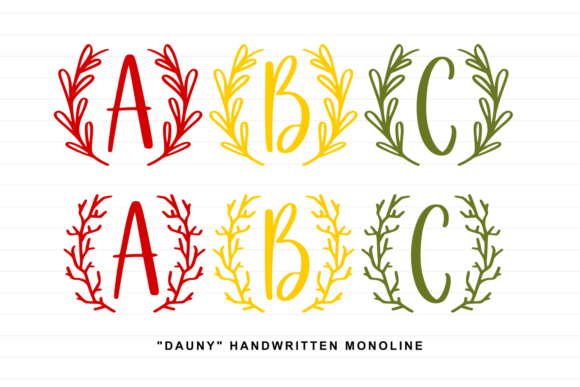
Adding a Personal Touch: The Charm of Dauny Monogram Font
As designers, we’ve all been there – staring at a blank page, trying to bring a client’s vision to life. Sometimes, it’s the smallest details that make the biggest impact. For me, it’s the moment when a custom monogram font comes together, transforming a simple initial into a beautiful work of art. That’s exactly what happens with the Dauny Monogram Font – a delightful, handwritten font designed to add a touch of warmth and personality to your designs.
Dauny Monogram Font is perfect for logos, labels, stationery, and wedding details, where a unique and memorable signature is essential. Its soft curves and friendly proportions make it ideal for short names and initials, while its compact monogram style keeps the look neat and tidy. Whether you’re a seasoned designer or just starting out, Dauny Monogram Font is a valuable addition to your toolkit, helping you create designs that feel joyful, gentle, and handmade.
- Unique Characteristics: This font features elegant, cursive monogram designs with intricate details, making it perfect for creating personalized and sophisticated designs.
- Font Style: Dauny Monogram Font is available in a single font style, but it offers various monogram designs, allowing users to choose the perfect combination of letters and shapes to suit their needs.
Dauny Monogram Font Review
At first glance, I was immediately drawn to the unique and elegant aesthetic of Dauny Monogram Font. It’s a beautiful script font that exudes sophistication and style. ✨ The font’s intricate details and delicate curves make it perfect for creating a high-end, luxurious feel in any design project.
- Unique and elegant aesthetic
- Perfect for creating a high-end, luxurious feel
- Delicate curves and intricate details
- Great for branding and packaging design
- Works well in a variety of contexts, from formal to modern
However, I did notice a few limitations with Dauny Monogram Font. ⚠️ The font can be a bit too ornate for some designs, and the intricate details may get lost if not used correctly. Additionally, the font may not be the best choice for text-heavy designs, as the script style can be difficult to read at smaller font sizes.
Overall, I’m impressed with Dauny Monogram Font. It’s a beautiful and versatile font that can add a touch of elegance to any design project. However, it’s essential to use it thoughtfully and in the right context to get the most out of it.
Dauny Monogram Font is ideal for creating custom logos, invitations, and other decorative text elements.